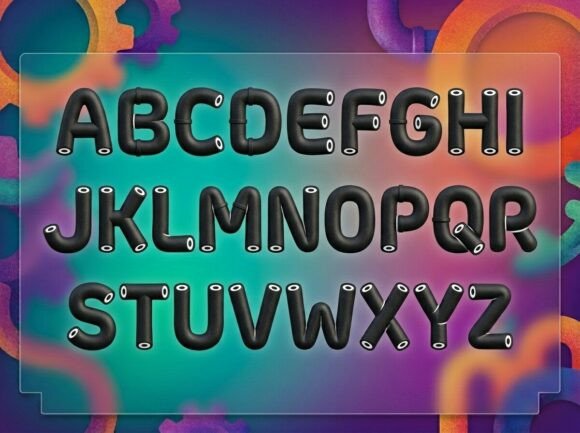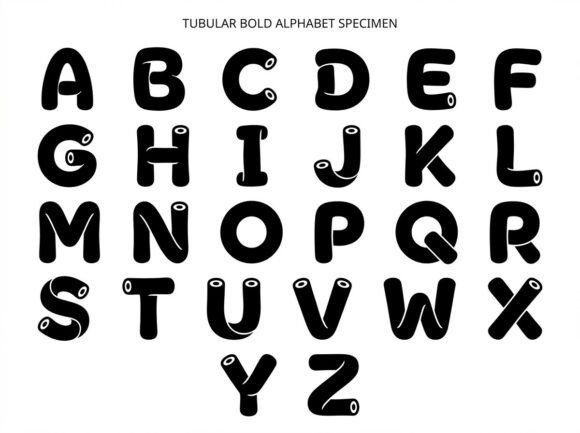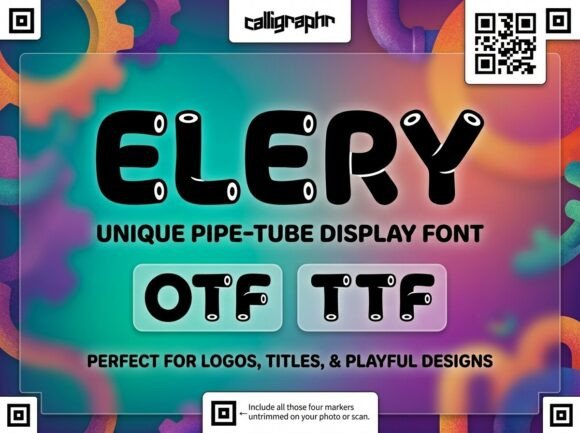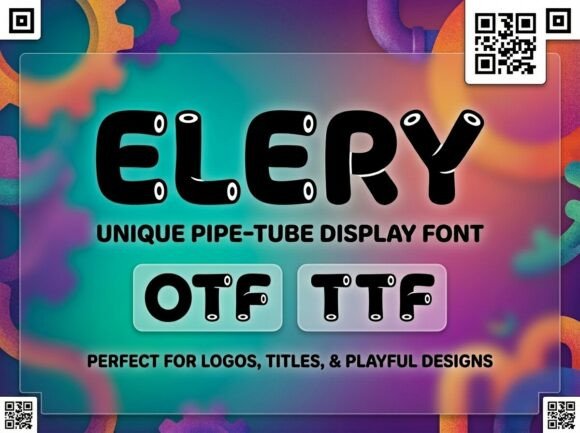
Introducing Elery Font: A Stunning Decorative Display Font
Are you tired of using the same old fonts for your designs? Look no further than Elery Font, a unique and artistic display font that’s sure to turn heads. With its strong visual personality and decorative elements, this font is perfect for creators who want to add a touch of elegance and sophistication to their work.
Elery Font is designed to be the center of attention, making it ideal for bold headlines, artistic logos, and creative packaging. Its unique artistic elements and strong visual personality set it apart from more traditional fonts, giving your designs a professional and polished finish.
Before you make your purchase, it’s essential to note that Elery Font is an ALL-CAPS (Uppercase Only) display typeface. This means that it does not include lowercase letters, making it specifically designed for high-impact headlines, logos, and decorative initials where every letter is a work of art.
Elery Font is a versatile font that’s perfect for a range of design applications, including:
- Headlines and titles – Add a touch of elegance and sophistication to your headlines and titles with Elery Font’s unique and artistic elements.
- Logos and branding – Create a lasting impression with a custom logo or branding that showcases your unique style and personality.
- Packaging and product design – Stand out on store shelves with eye-catching packaging and product design that incorporates Elery Font.
- Invitations and stationery – Add a touch of luxury and sophistication to your invitations and stationery with Elery Font’s elegant and refined design.
Why Choose Elery Font?
With so many fonts to choose from, why should you choose Elery Font? Here are just a few reasons:
- Unique and artistic elements – Elery Font features unique and artistic elements that set it apart from more traditional fonts.
- Strong visual personality – This font has a strong visual personality that demands attention and makes a lasting impression.
- Professional and polished finish – Elery Font gives your designs a professional and polished finish that’s sure to impress.
- Versatile and flexible – This font is versatile and flexible, making it perfect for a range of design applications.
If you’re looking for a font that will take your designs to the next level, look no further than Elery Font. With its unique artistic elements, strong visual personality, and professional and polished finish, this font is perfect for designers and crafters who want to add a touch of elegance and sophistication to their work. So why wait? Purchase Elery Font today and start creating stunning designs that demand attention!